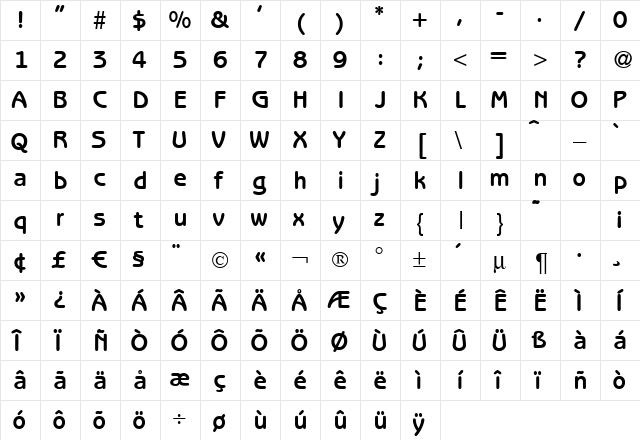
B691-Sans Bold
Design Context for B691-Sans Typeface
B691-Sans offers clean, dependable letterforms without strong stylistic allegiance, making it a practical choice for designers who need flexibility. The heavy weight commands attention and anchors typographic hierarchies.